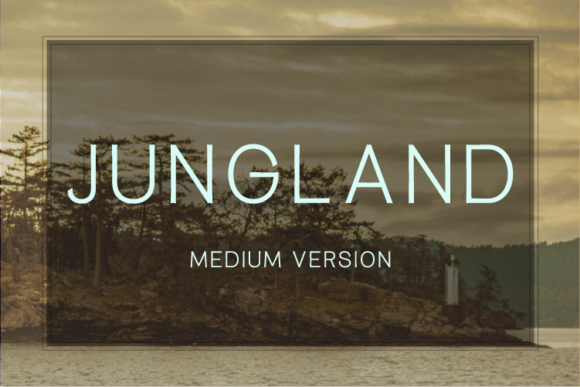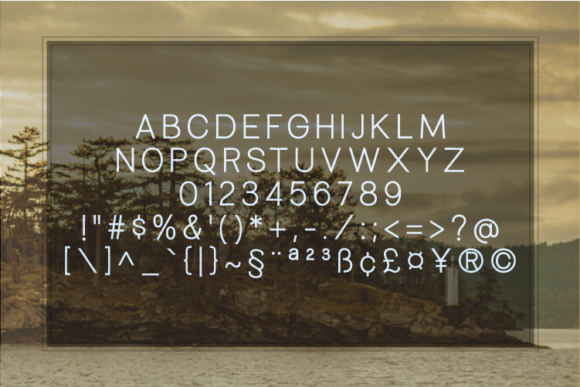
HomeSans Serif FontsJungland Medium Font Sans Serif Fonts Jungland Medium Font FacebookTwitterPinterestWhatsApp Jungland Medium Font 1 of 2 About Jungland Medium Font Jungland is a geometric font family with a warm, engaging style. Inviting and versatile, Jungland’s subtle imperfections and human tone make it great for headlines, quotes, and short text. DOWNLOAD NOW People also explored Safelight Font Skull Font Ooh Lala Font Filanttica Font Best Love Font Sporunner Font Autologicals Font Cute Aurel Font Routher Script Font 200 0 TagsJungland Medium Font Previous articleJungland Semi-Bold FontNext articleJungland Font LEAVE A REPLY Cancel reply Comment: Please enter your comment! Name:* Please enter your name here Email:* You have entered an incorrect email address! Please enter your email address here Website: Save my name, email, and website in this browser for the next time I comment. Personal Use Free Boston Traffic Personal Use Free Read more about this font Adelaide Personal Use Free Read more about this font Adriator Personal Use Free Read more about this font Miss Love Personal Use Free Read more about this font BLOG Using Fonts in Digital Marketing: Tips to Strengthen Your Brand Identity In the realm of digital marketing, every visual element plays a crucial role in shaping a brand's identity, and fonts are no exception. The... The 10 Best Handwriting Fonts to Add Personality to Your Designs To increase your work productivity, choose the most readable fonts. Elegant Wedding Invitation Fonts – Handwritten & Script Fonts